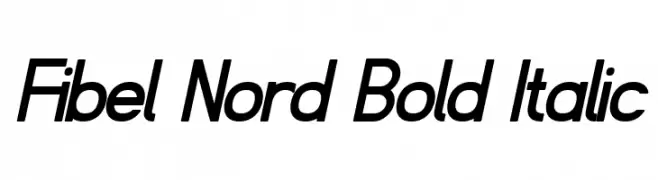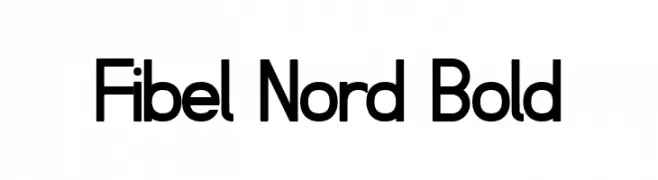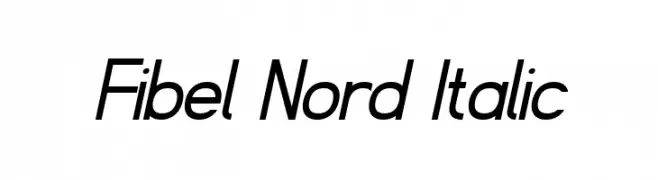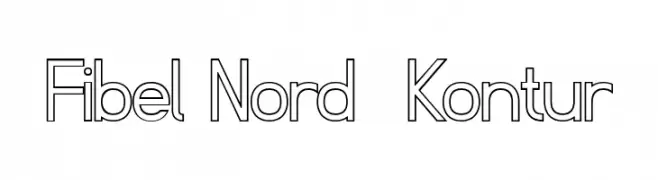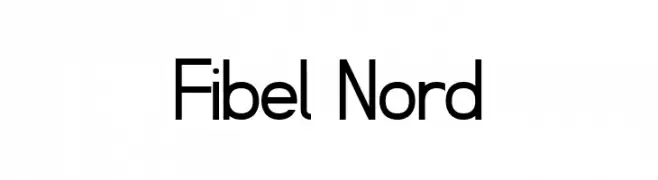
A bold, modern sans-serif font with clean lines and a strong presence.
A bold, geometric font with modern and classic influences.
A modern, italicized font with a sleek and streamlined appearance.
A bold, geometric sans-serif font with a modern and clean appearance.
A modern, geometric outline font with uniform line thickness.
A modern, geometric sans-serif font with uniform strokes and a sleek appearance.
A bold, italicized font with a dynamic and assertive style.